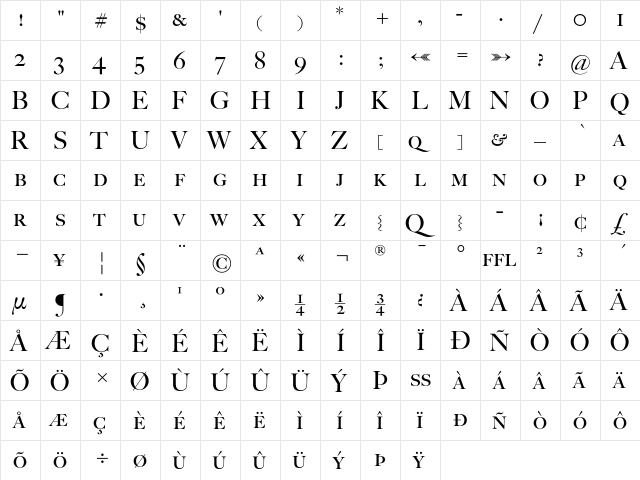
BigCaslon Regular
Design Context for BigCaslon Typeface
BigCaslon is a composed and adaptable typeface that performs quietly and consistently across a wide range of design contexts.